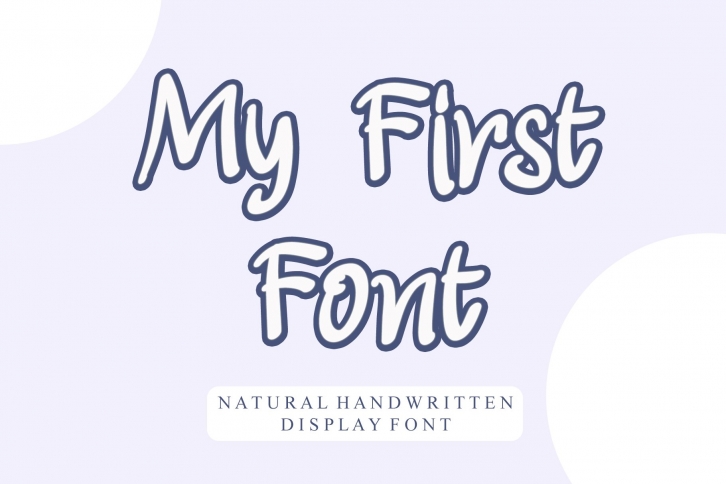
My First is a beautiful font that was designed by Letterafa Studio. It's a great choice for designers and creatives who need such a font. It was released on March 16, 2022 and the file size is 20.94 MB. My First may give a more youthful, expressive and casual look to your project. It is a very beautiful, refined, elegant, and high-quality font.